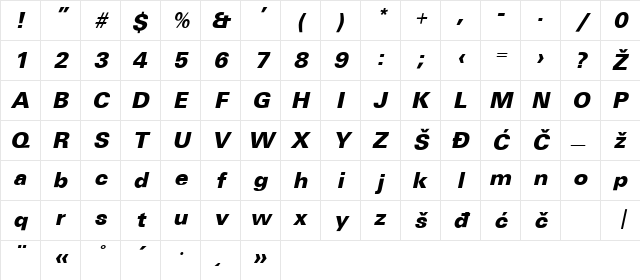
Universans750_PP Bold
Design Context for Universans750_PP
Universans750_PP is a composed and adaptable typeface that performs quietly and consistently across a wide range of design contexts. Its bold stroke weight gives it real presence on the page.